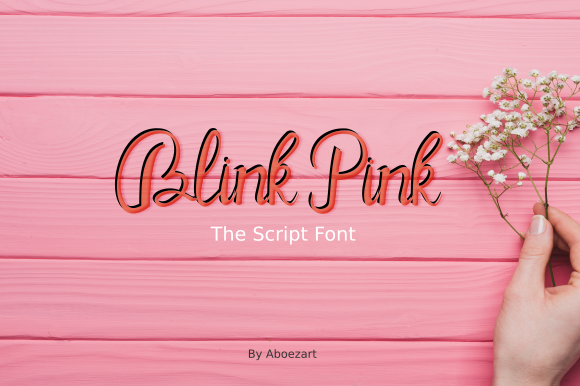
Dive into the world of Blink Pink, a captivating script font family that exudes a charm like no other. Curated with meticulous care by AboeZart Studio, Blink Pink is the epitome of authenticity, transforming design projects into visual masterpieces.
With its elegant strokes and free-flowing style, Blink Pink adds a human touch to digital creations. Its organic feel evokes a sense of individuality and uniqueness, setting your designs apart from the crowd.
Welcome your customers to a realm where creativity and expression intertwine. Unlock the potential of Blink Pink to craft logos that speak volumes, posters that inspire, and social media posts that captivate. Its versatility extends across a spectrum of design ventures, adding a personal touch to branding, invitations, and even fabrics.
Unleash your imagination and explore the boundless possibilities of Blink Pink. Let its graceful lines dance across your designs, evoking emotions and leaving a lasting impression. Embrace the allure of handwritten beauty and make a statement that resonates with your audience.
At AboeZart Studio, we believe that fonts are more than just characters; they are the storytellers of your brand. As you embark on your design journey with Blink Pink, let its enchanting aura transform your vision into a reality.